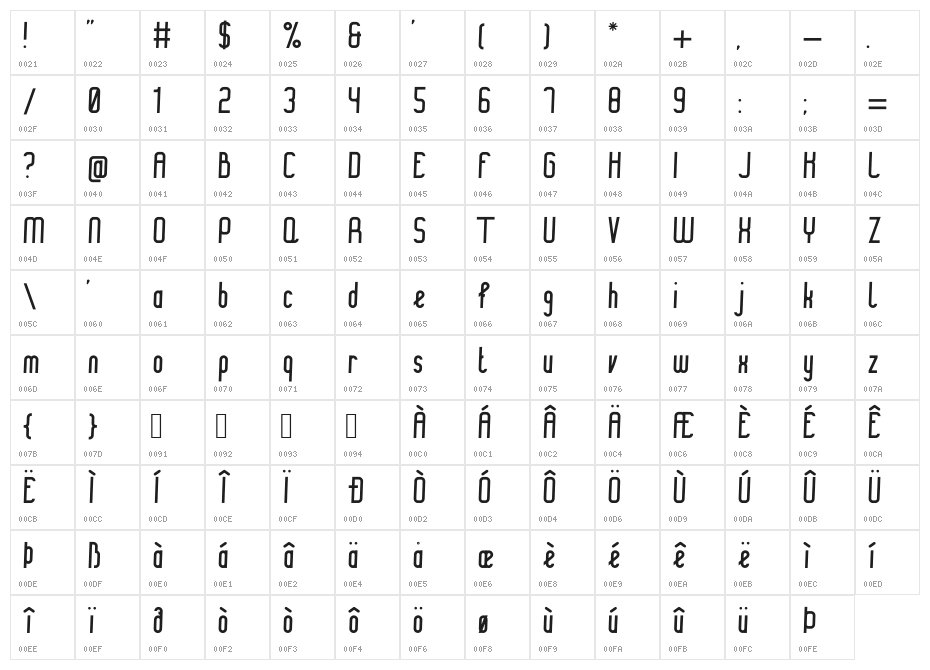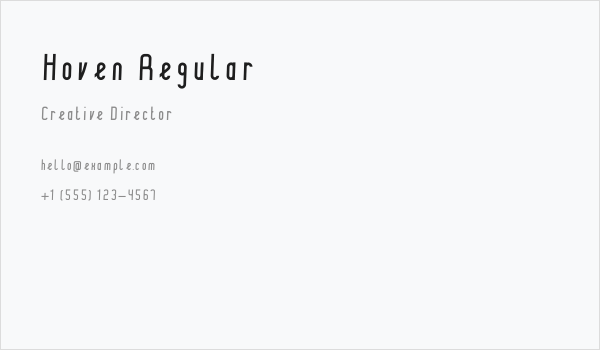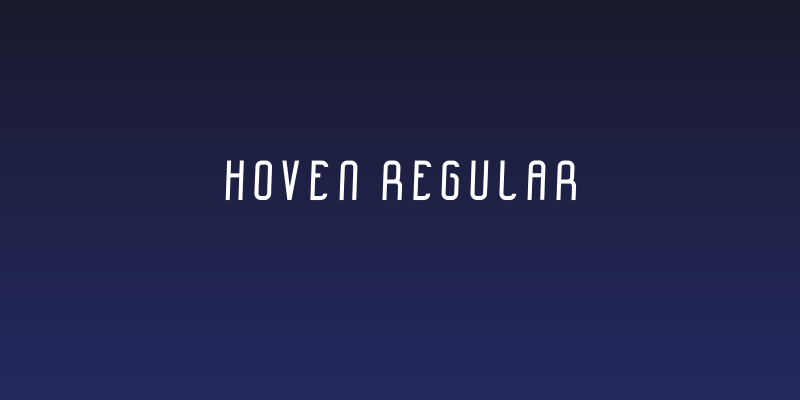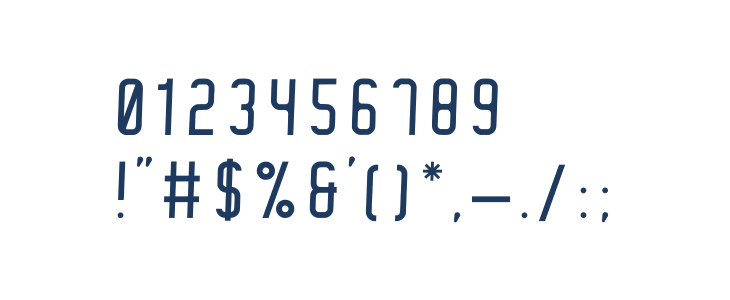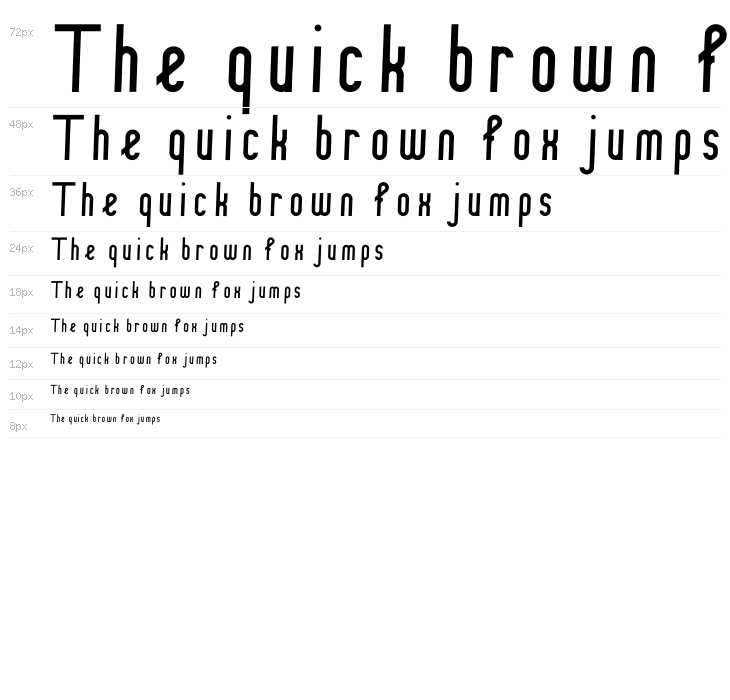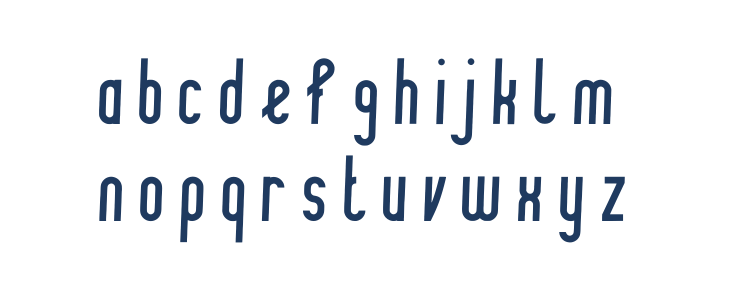
Hoven Regular Font
Hoven Regular Description
This font features a unique blend of modern and vintage elements, characterized by its tall, narrow letterforms and subtle curves. The uppercase letters have a distinct, slightly condensed appearance with a consistent stroke width, giving them a sleek and streamlined look. The lowercase letters maintain a similar style, with some characters like 'e' and 'g' showcasing a playful, rounded design. The numerals are clear and legible, following the same narrow structure. Special characters are well-integrated, maintaining the overall aesthetic. This font's design is both functional and stylish, making it suitable for a variety of creative applications.